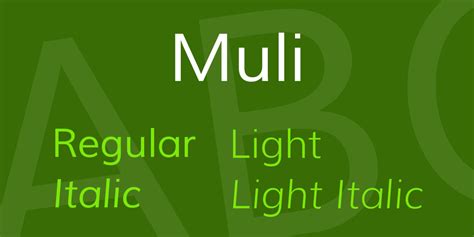
Muli Google Font. Web making the web more beautiful, fast, and open through great typography Web explore muli designed by vernon adams at adobe fonts.
A sans serif typeface with 14 styles, available from adobe fonts for. Web mulish is a minimalist sans serif typeface, designed for both display and text typography. It was initially drawn in 2011. Web making the web more beautiful, fast, and open through great typography Web explore muli designed by vernon adams at adobe fonts.
Web making the web more beautiful, fast, and open through great typography It was initially drawn in 2011. Web explore muli designed by vernon adams at adobe fonts. Web making the web more beautiful, fast, and open through great typography A sans serif typeface with 14 styles, available from adobe fonts for. Web mulish is a minimalist sans serif typeface, designed for both display and text typography.